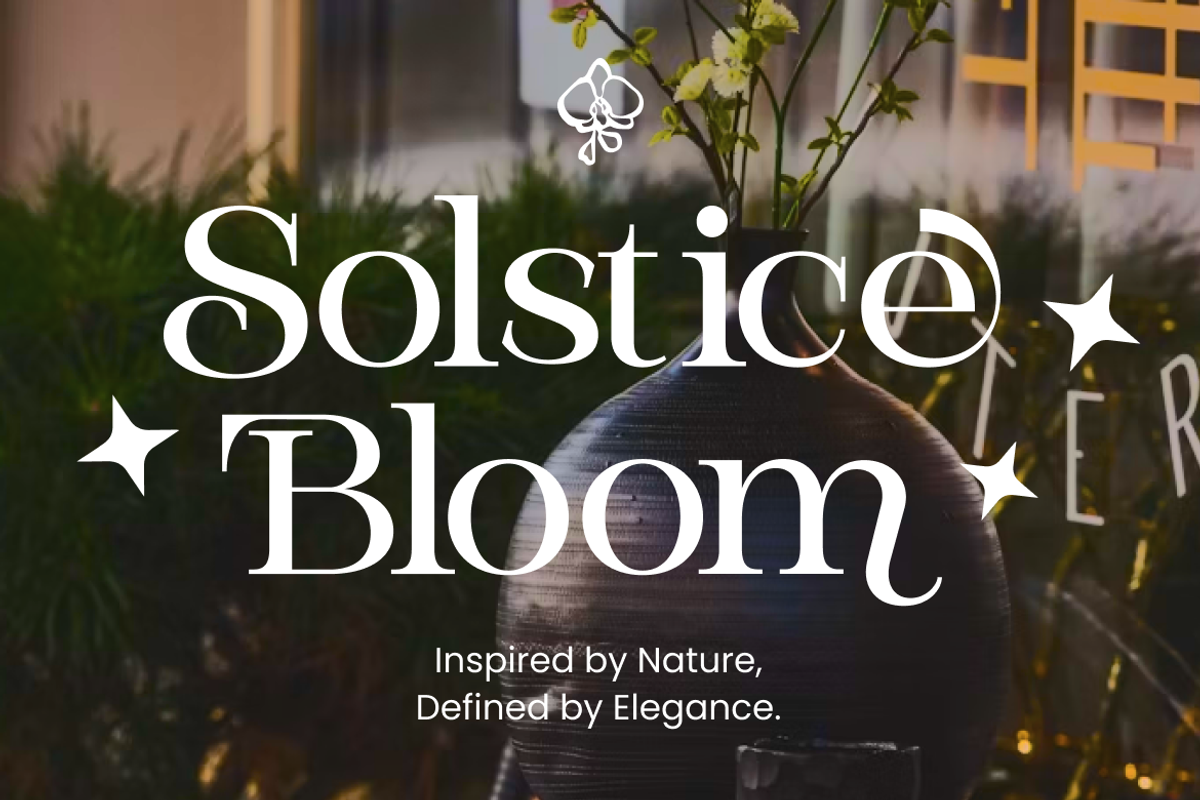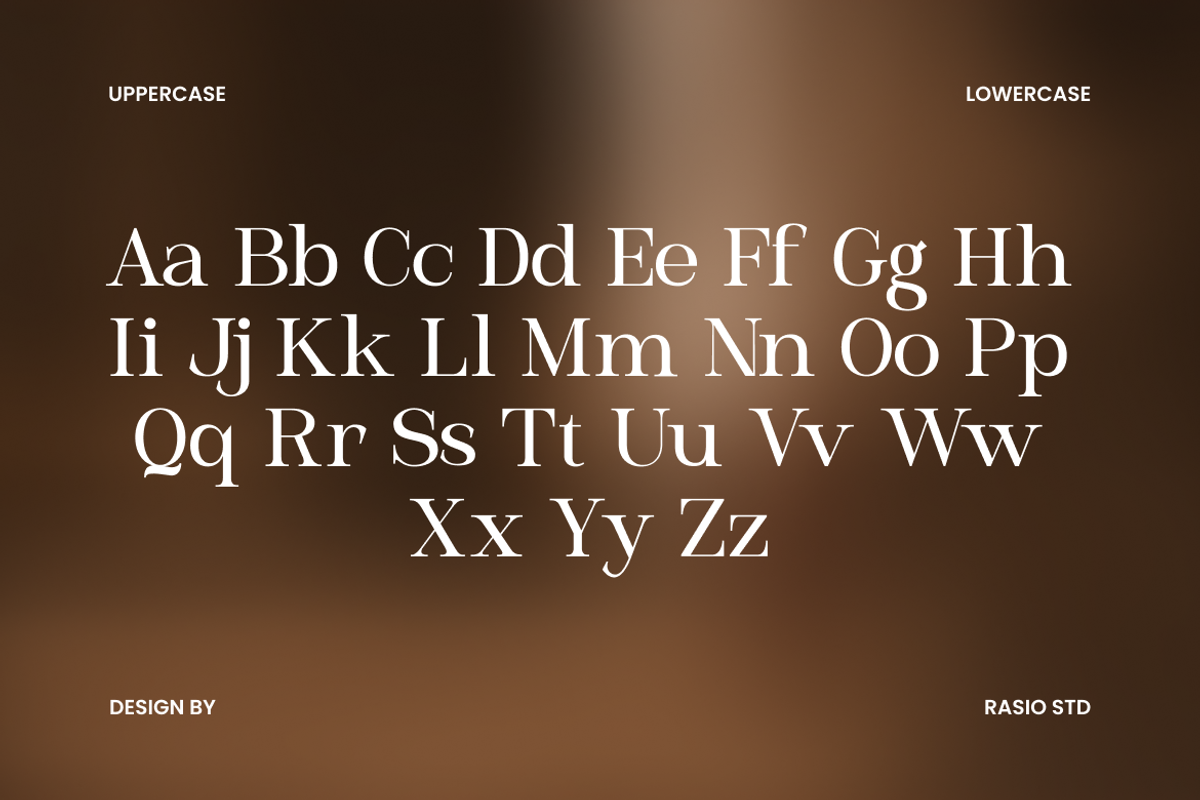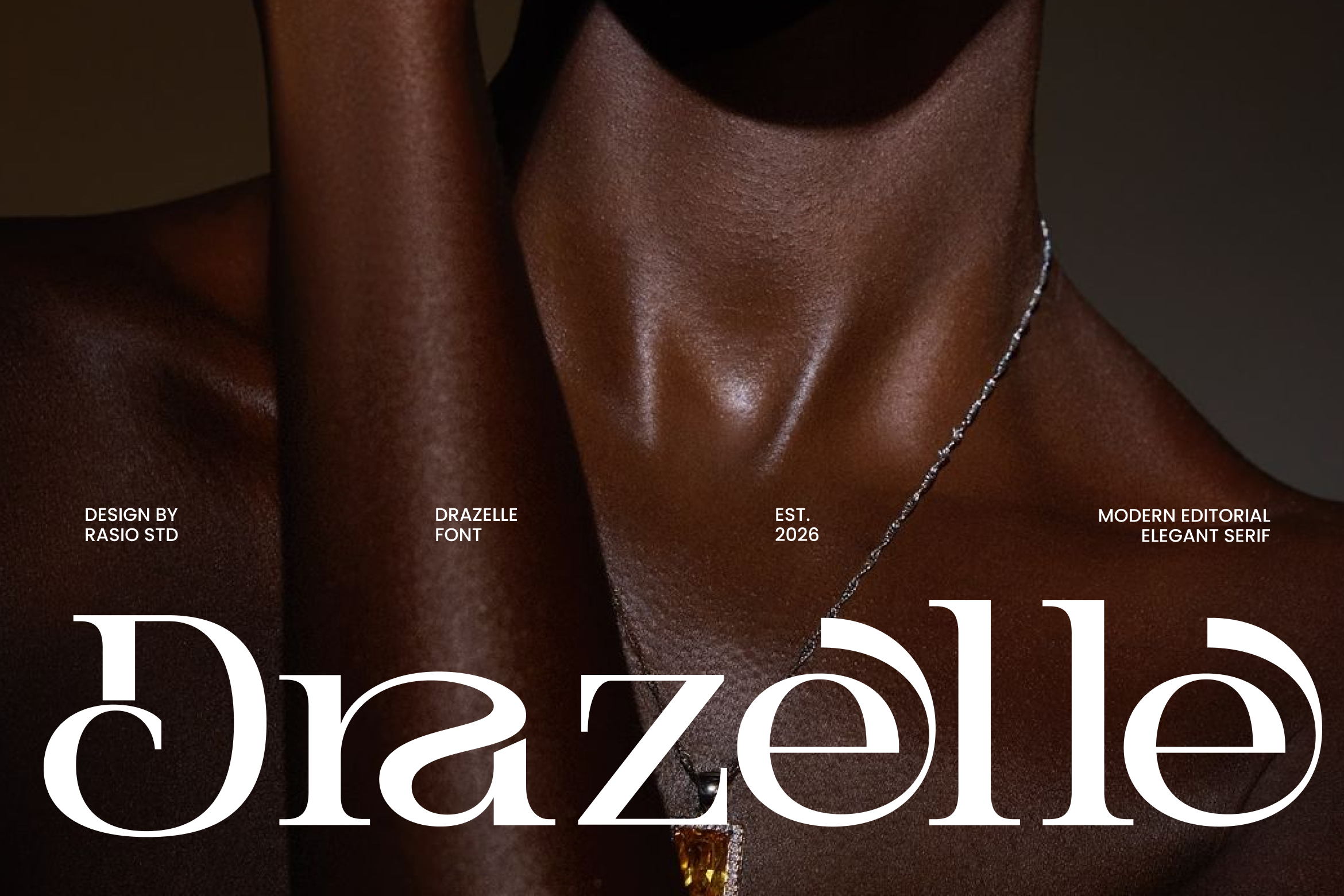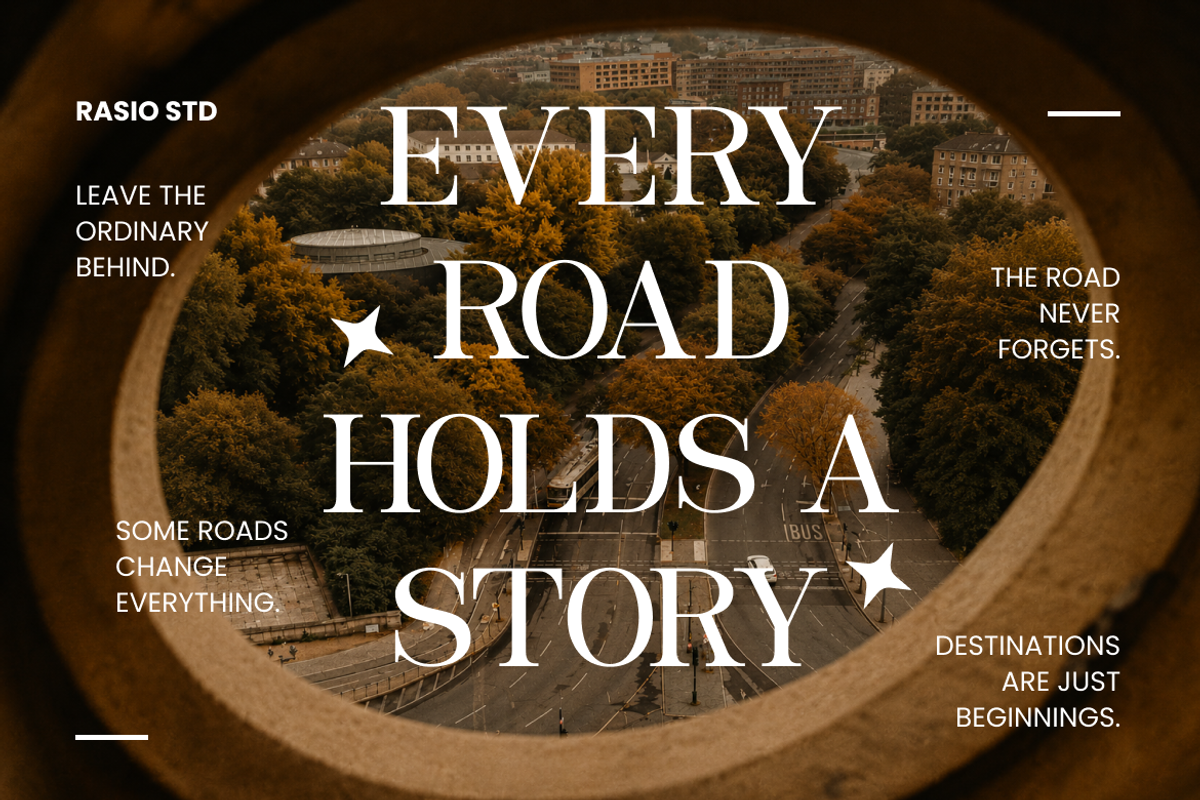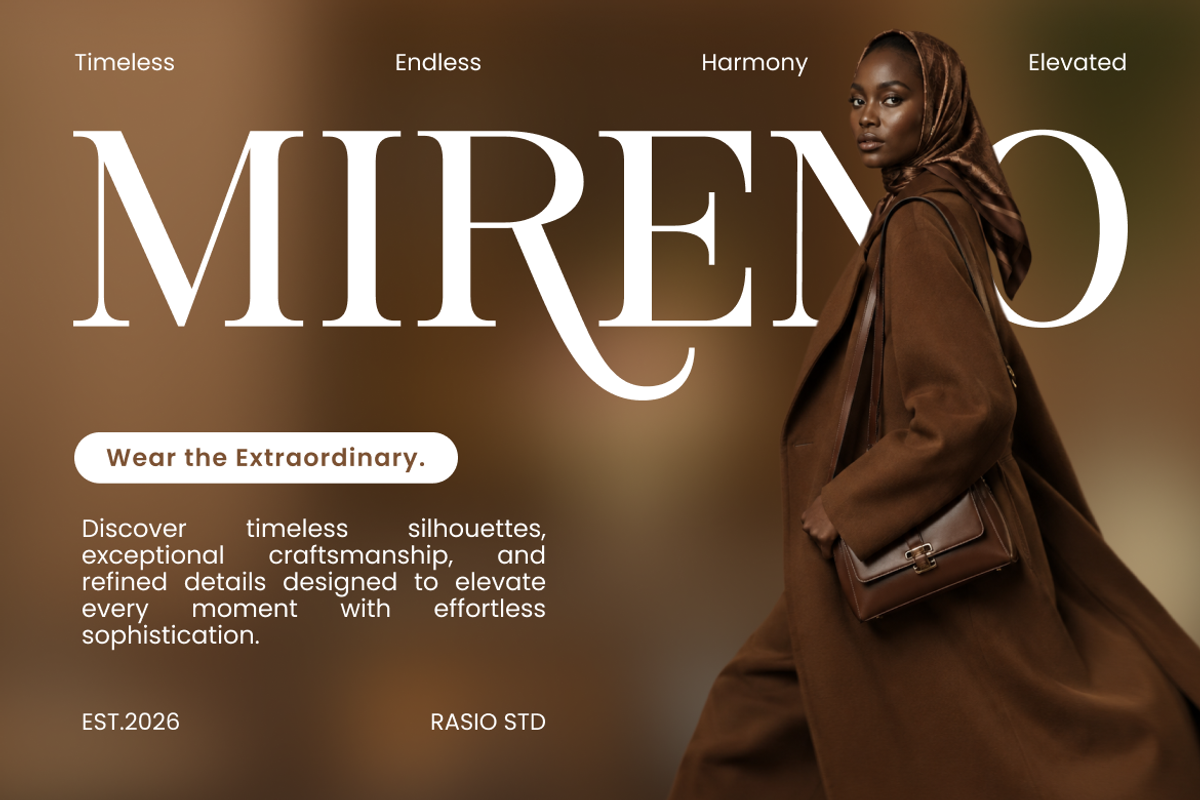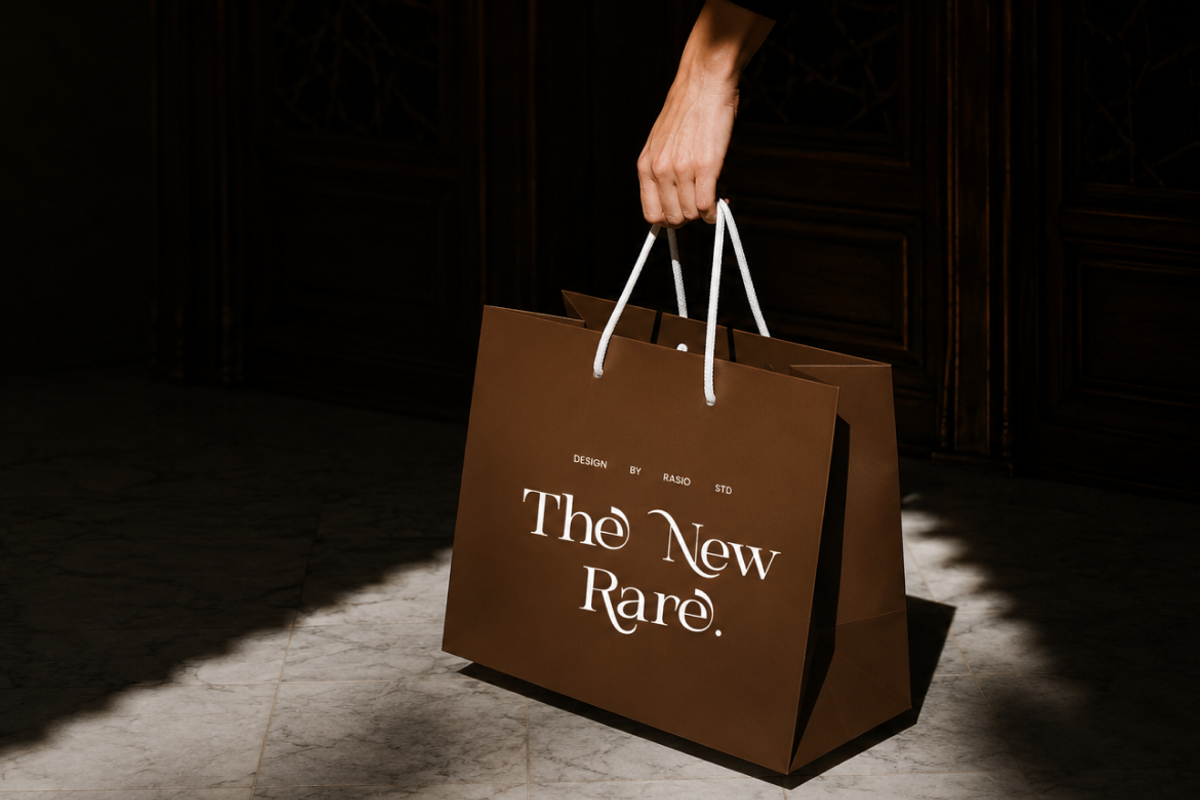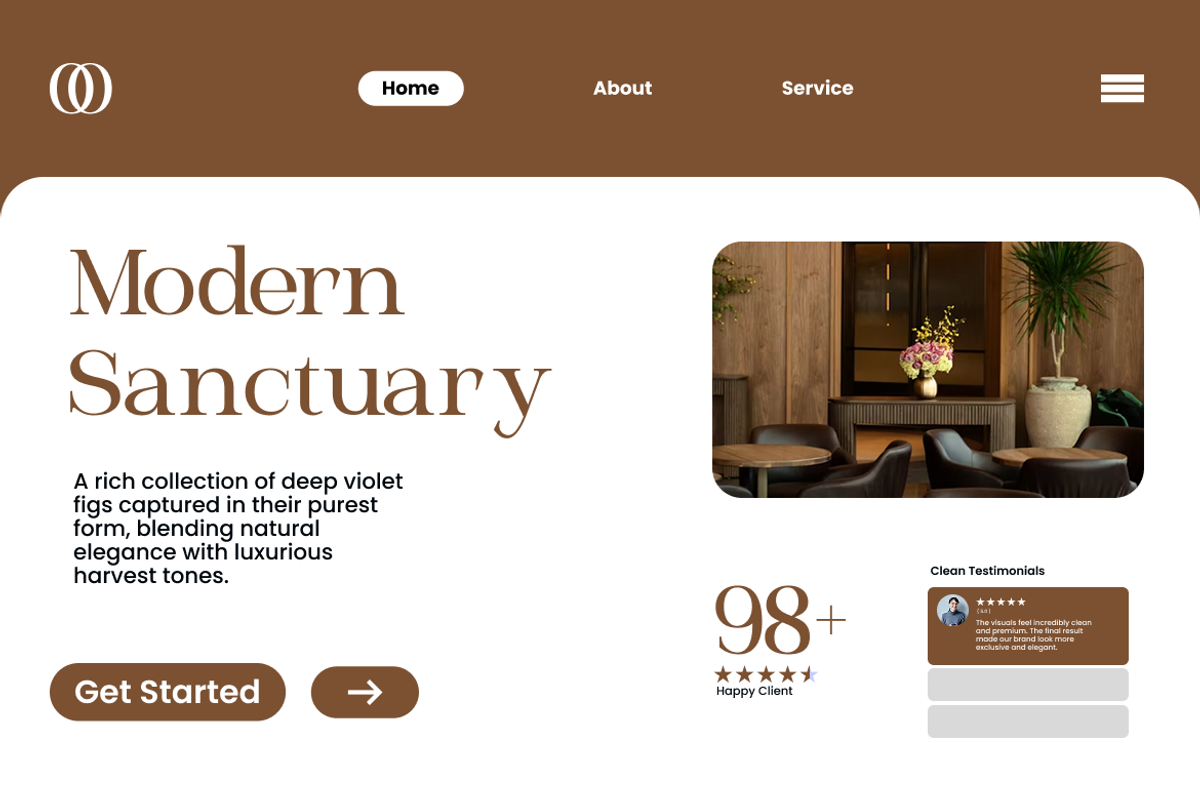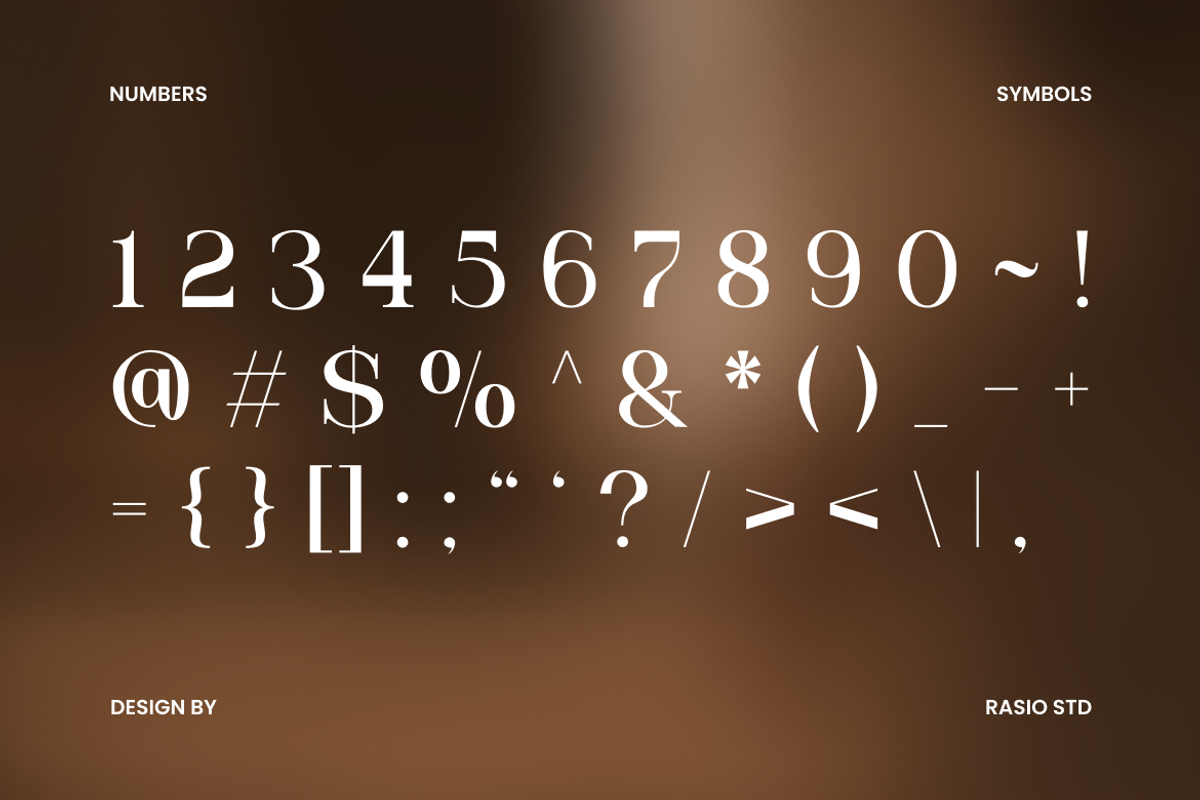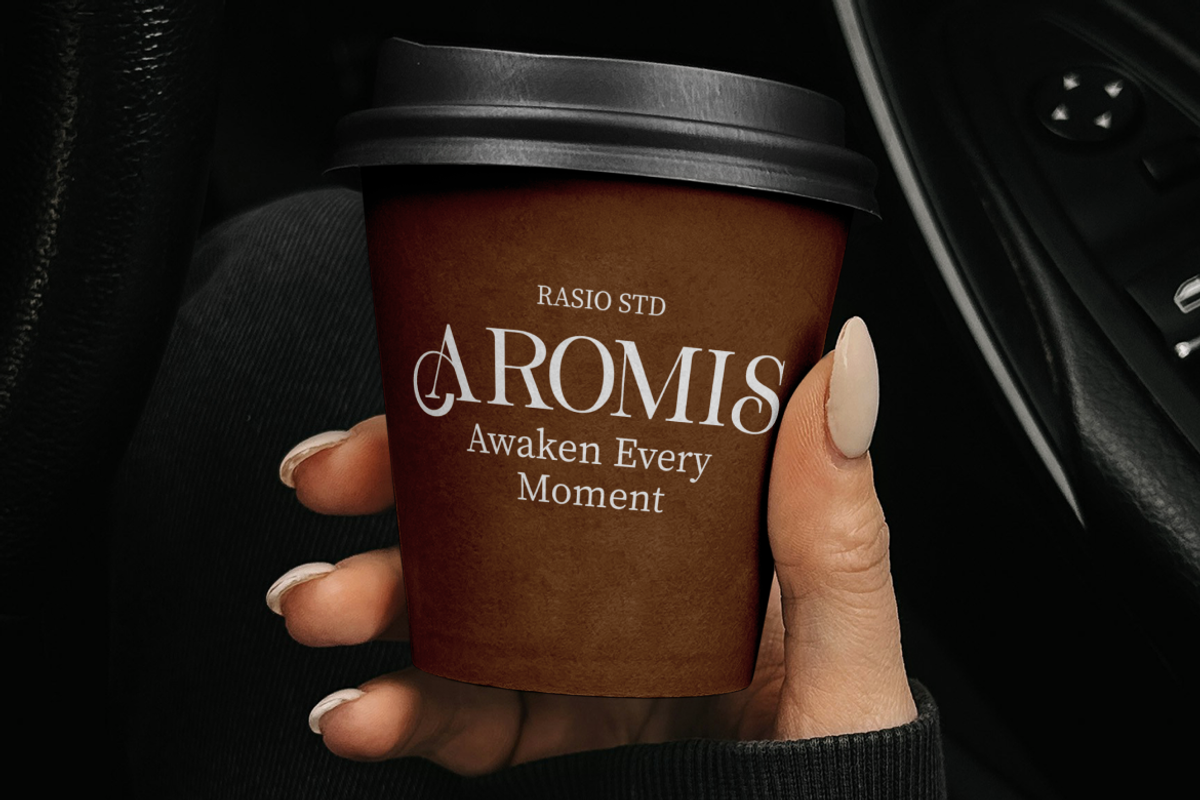
Drazelle Modern Editorial Serif Font
Drazelle Modern Editorial Serif Font is a refined high-contrast serif typeface that blends timeless editorial elegance with contemporary precision. Designed with graceful proportions, delicate hairlines, and confident vertical stems, each character delivers a luxurious visual presence while maintaining exceptional readability. The combination of sculpted curves, refined stroke transitions, and generous spacing creates sophisticated typography suited for premium branding and high-end visual communication.
The typeface features carefully balanced uppercase and lowercase characters with elegant serif details that add rhythm and personality without overwhelming the composition. Its distinctive letterforms include refined terminals, smooth curves, open counters, and subtle contrast, allowing headlines, logos, and editorial layouts to appear polished and effortlessly premium. Every glyph is engineered to perform consistently across both digital and printed media, making the font equally effective for large display settings and refined typographic compositions.
Contemporary editorial serif design with refined high-contrast construction
Gracefully sculpted curves, delicate hairlines, and elegant serif details
Harmonious proportions, open spacing for sophisticated headlines and luxury branding
Precision-crafted letterforms that balance timeless elegance with modern refinement
Optimized for premium fashion campaigns, luxury packaging,visual identities
Luxury brand identities and premium logo design
Editorial magazines, fashion campaigns, and lookbook layouts
Beauty, skincare, jewelry, and cosmetic packaging
Wedding invitations, boutique branding, and elegant stationery
Website hero sections, luxury marketing materials, and refined social media content
Screen-optimized kerning for responsive web design
Supports numerals, punctuation, and extensive symbol set
Craft sophisticated visual identities with Drazelle and express refined luxury